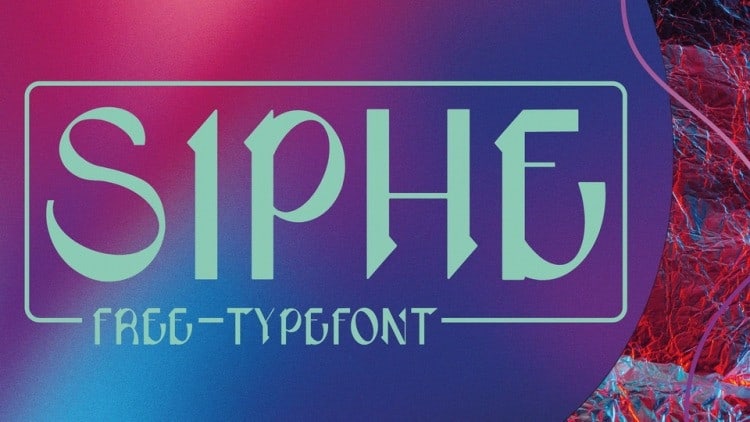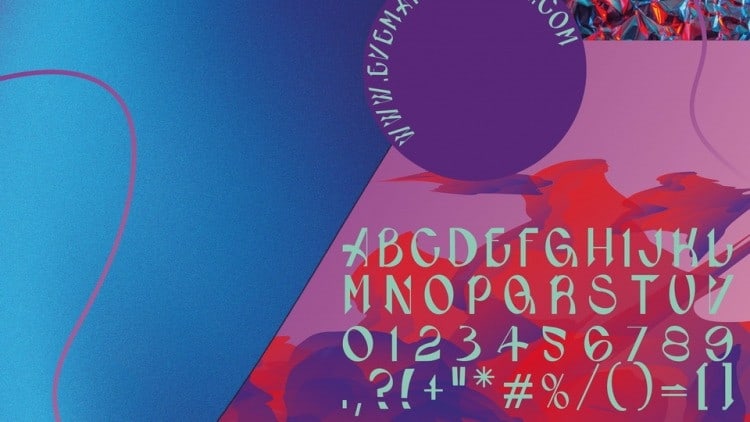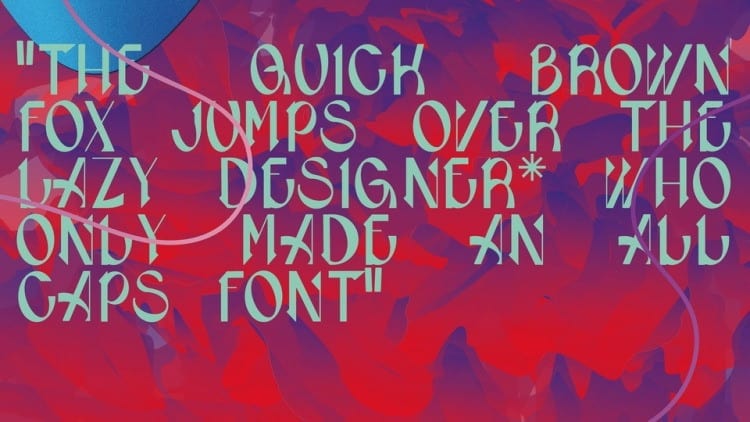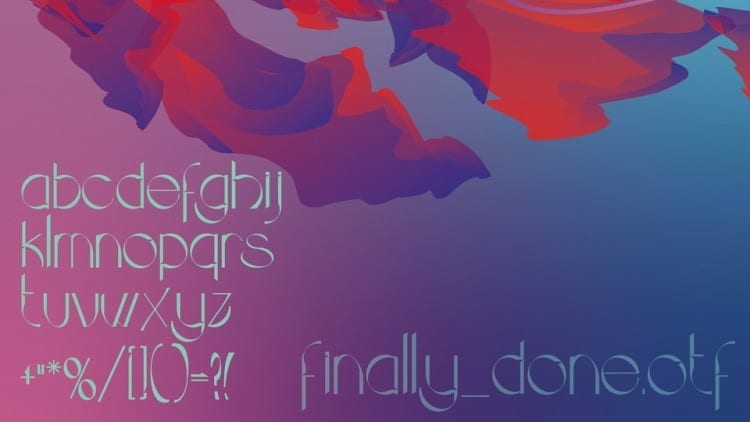
Siphe Display Font inspiration from pre-Carolingian uncial characters dating back more than a thousand years. It’s designed and shared by Eve Perrin. Siphe is a contemporary display typeface with high contrast and distinctive letterforms. The font is best suited for logo designs, posters, album covers and editorial use.